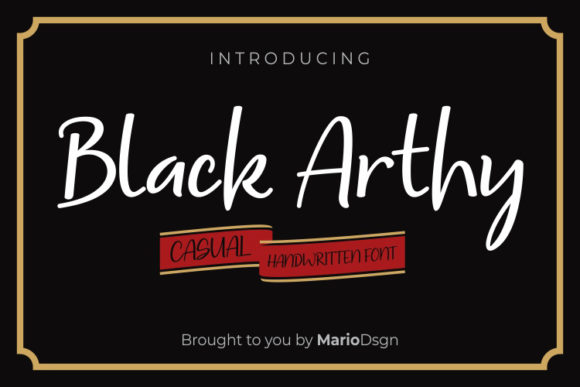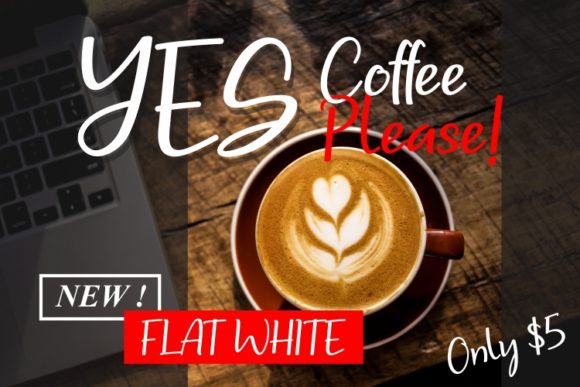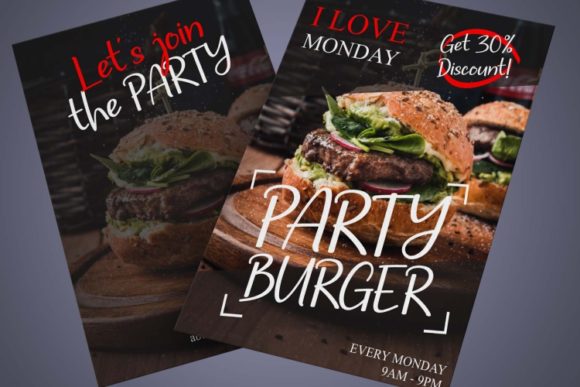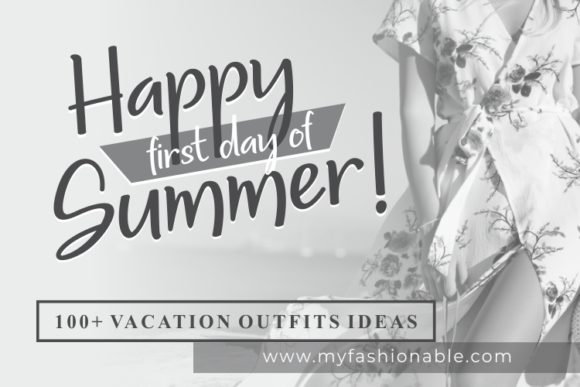
About Black Arthy Font
Black Arthy is a simple and casual handwritten font. It looks stunning for your creative projects such as on logo and branding, wedding invitation, flyer or brochure title, magazine headline, label & packaging design, and another design that needs a handwritten style.